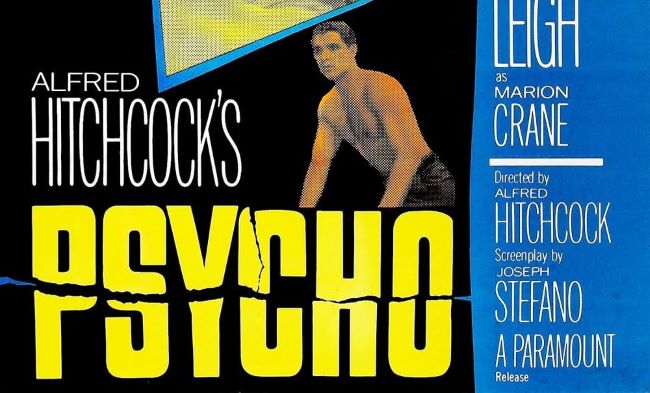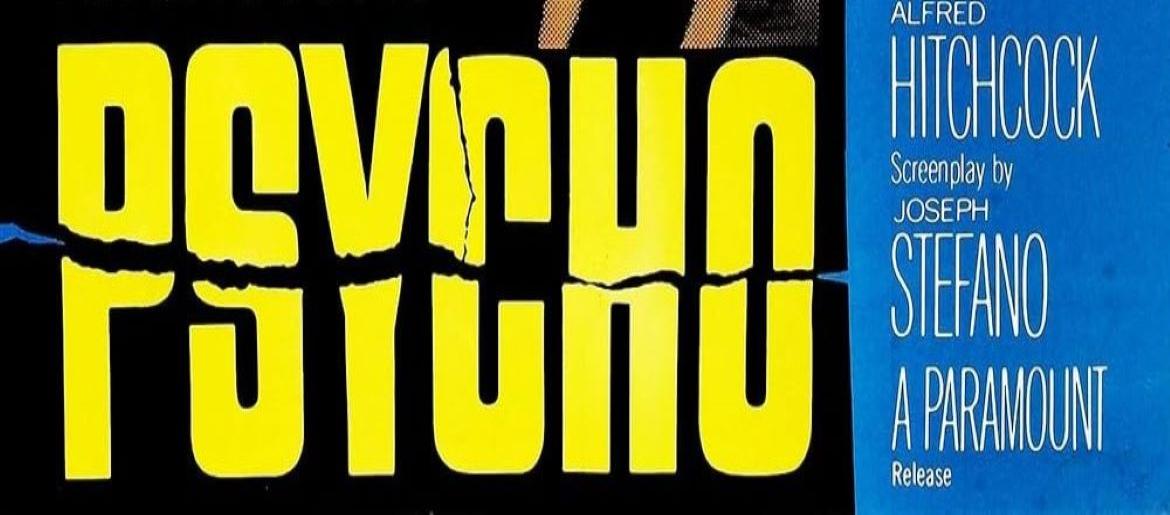
Psycho Font
Psycho Font slashes across the page with violently fractured letterforms that embody mental disintegration and cinematic terror. This typography doesn’t whisper—it shrieks through jagged splits and unnerving angles, channeling Hitchcock’s mastery of suspense into visual chaos that makes viewers instinctively recoil before understanding why.
In the original posters, the lettering looks fractured, as if it has been violently torn apart. This broken style mirrors the instability of Norman Bates and the shocking twists that define the film. Designers today use the Psycho font when they want to create titles, posters, or artwork that demand attention and deliver a chilling, suspenseful mood.
The exact typeface was custom-designed for the movie, but there are some strong replicas and alternatives available. The most popular fan-made option is Compacta BT, which recreates the fragmented look perfectly. If you’re after a free alternative, fonts like You Murderer BB also provide that sharp, horror-inspired vibe.
Psycho Font terrorizes horror anthology covers, psychological thriller games, haunted attraction signage, and true crime podcasts—where sanity splinters into unforgettable nightmares through shattered typography.